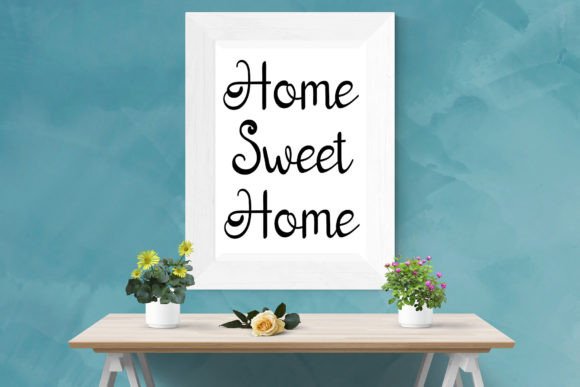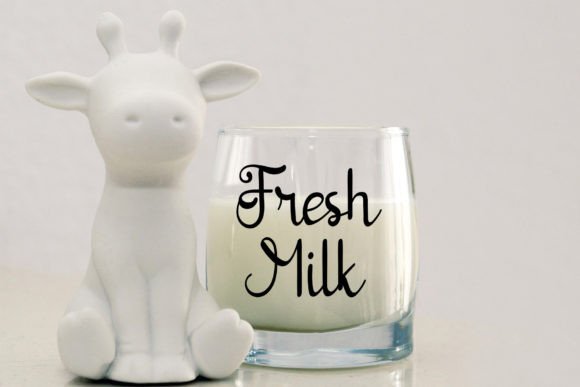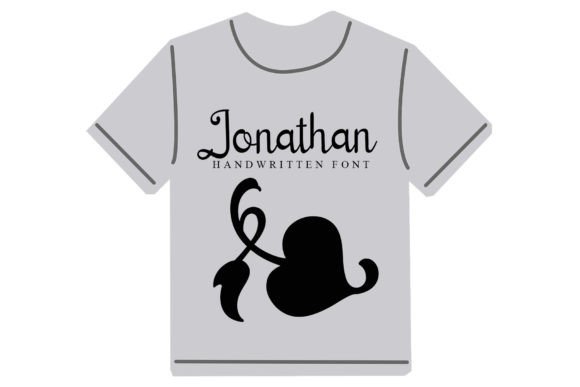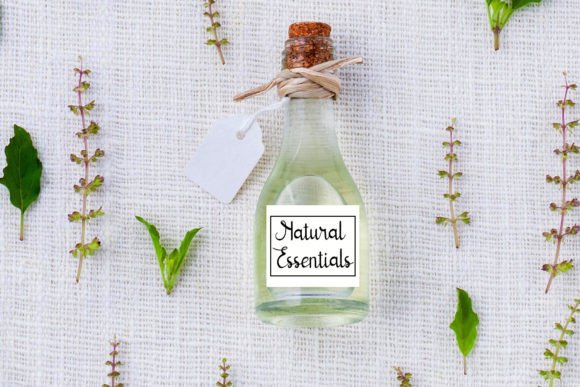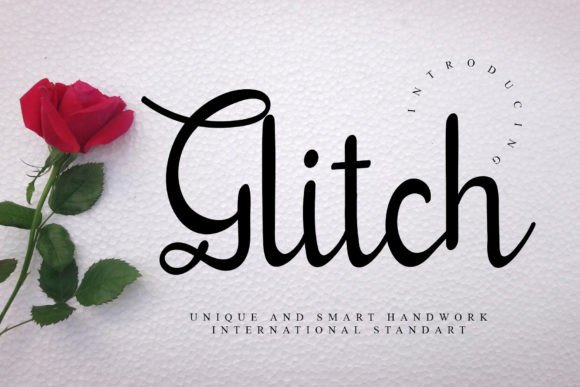
Introducing Glitch Font: Elevate Your Designs with a Unique and Elegant Touch
In the world of typography, fonts play a crucial role in conveying the tone and personality of a design. For designers and crafters seeking a unique and elegant touch, Glitch Font is an exceptional choice. This stunning font is perfect for adding a handwritten flair to various design projects, including wedding invitations, greeting cards, billboards, logos, business cards, and more.
What Makes Glitch Font Stand Out?
Glitch Font boasts a distinctive and sophisticated style that sets it apart from other fonts. Its elegant and refined appearance makes it an ideal choice for designs that require a touch of luxury and sophistication. The font’s unique characteristics include:
• Handwritten touch: Glitch Font features a beautiful, handwritten aesthetic that adds a personal and emotional touch to any design.
• Elegant and refined: The font’s sophisticated style makes it perfect for high-end designs, such as luxury branding, wedding invitations, and upscale marketing materials.
• Versatile: Glitch Font can be used for a wide range of design projects, from digital applications to print materials.
Glitch Font’s versatility makes it an excellent choice for various design applications. Here are some of the ways you can use this stunning font:
• Wedding Invitations: Add a touch of elegance and sophistication to your wedding invitations with Glitch Font.
• Greeting Cards: Create beautiful and heartfelt greeting cards for special occasions, such as birthdays, anniversaries, and holidays.
• Billboards: Make a bold statement with Glitch Font on your billboard designs, perfect for advertising luxury brands or promoting events.
• Logos: Use Glitch Font to create unique and memorable logos for your business or brand.
• Business Cards: Elevate your business cards with a touch of elegance and sophistication, perfect for professionals and entrepreneurs.
Tips for Using Glitch Font Effectively
To get the most out of Glitch Font, here are some tips for using it effectively in your designs:
• Pair with complementary fonts: Combine Glitch Font with other fonts that complement its elegant and refined style.
• Experiment with colors: Try out different colors and textures to add depth and visual interest to your designs.
• Pay attention to spacing: Ensure that your text is well-spaced and easy to read, especially when using Glitch Font for body text.
Glitch Font is a unique and elegant font that can elevate your designs with a handwritten touch. Its versatility, sophistication, and refined style make it perfect for various design applications, from wedding invitations to logos and business cards. By incorporating Glitch Font into your design projects, you can add a touch of luxury and sophistication that will leave a lasting impression on your audience.